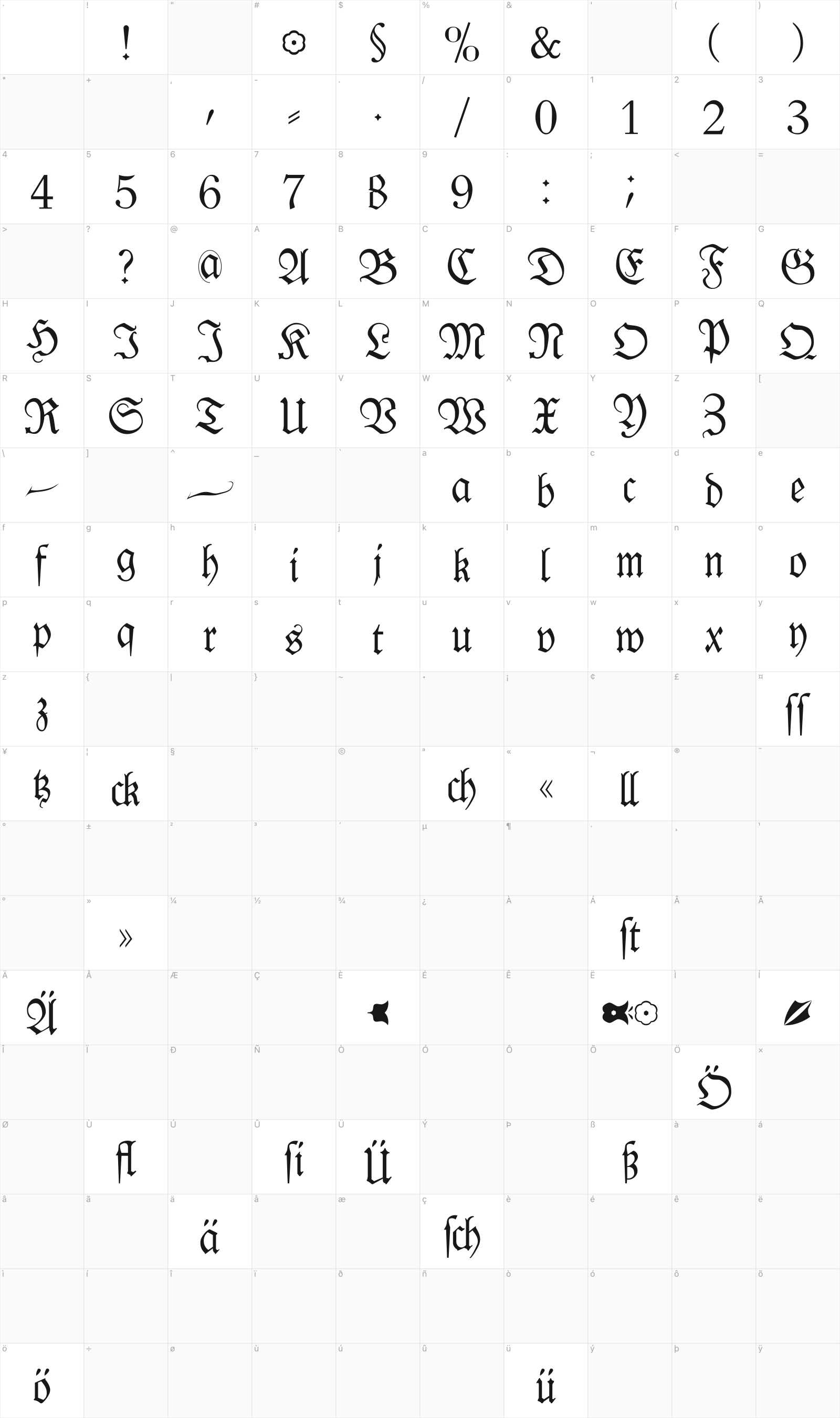
KlausBFraktur
KlausBFraktur is a traditional Fraktur blackletter by Manfred Klein, one of the most prolific creators of free typefaces, particularly in historical and calligraphic styles. The letterforms follow classic German Fraktur conventions with ornate capitals and the characteristic broken strokes of gothic script, giving it an authentic medieval weight. Best used at headline sizes for historical projects, certificates, beer labels, or anything that calls for old-world German typographic tradition.